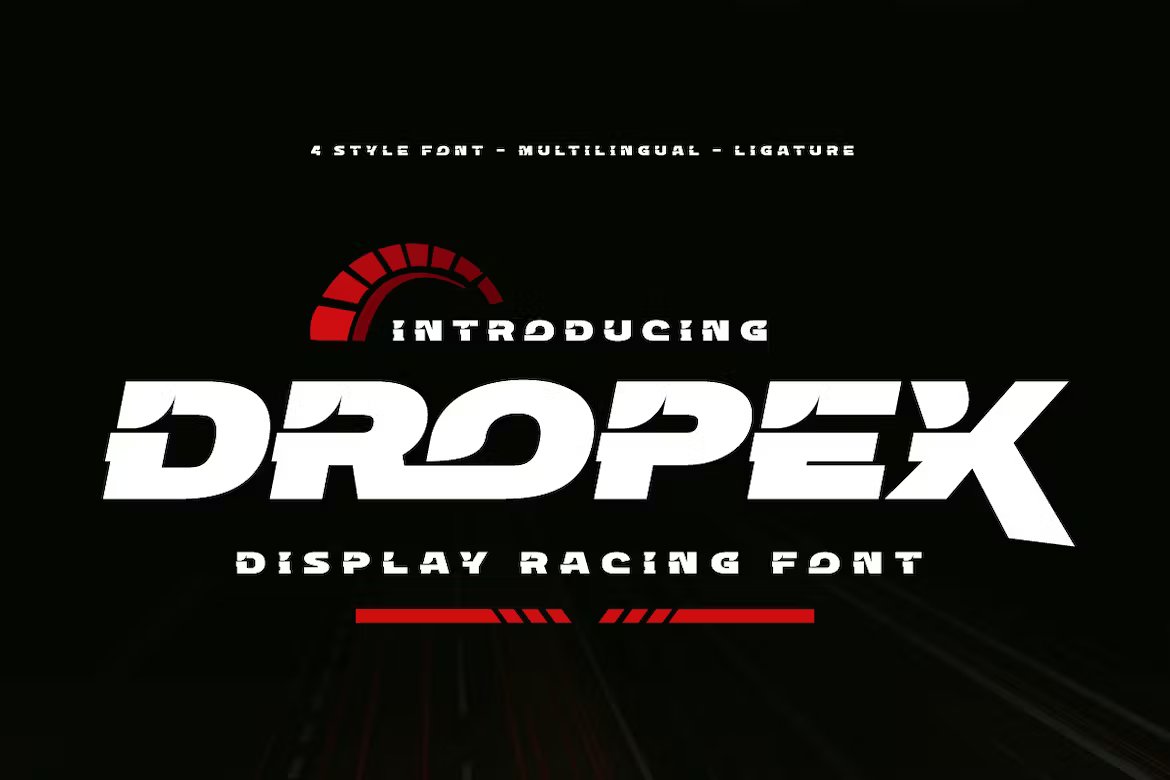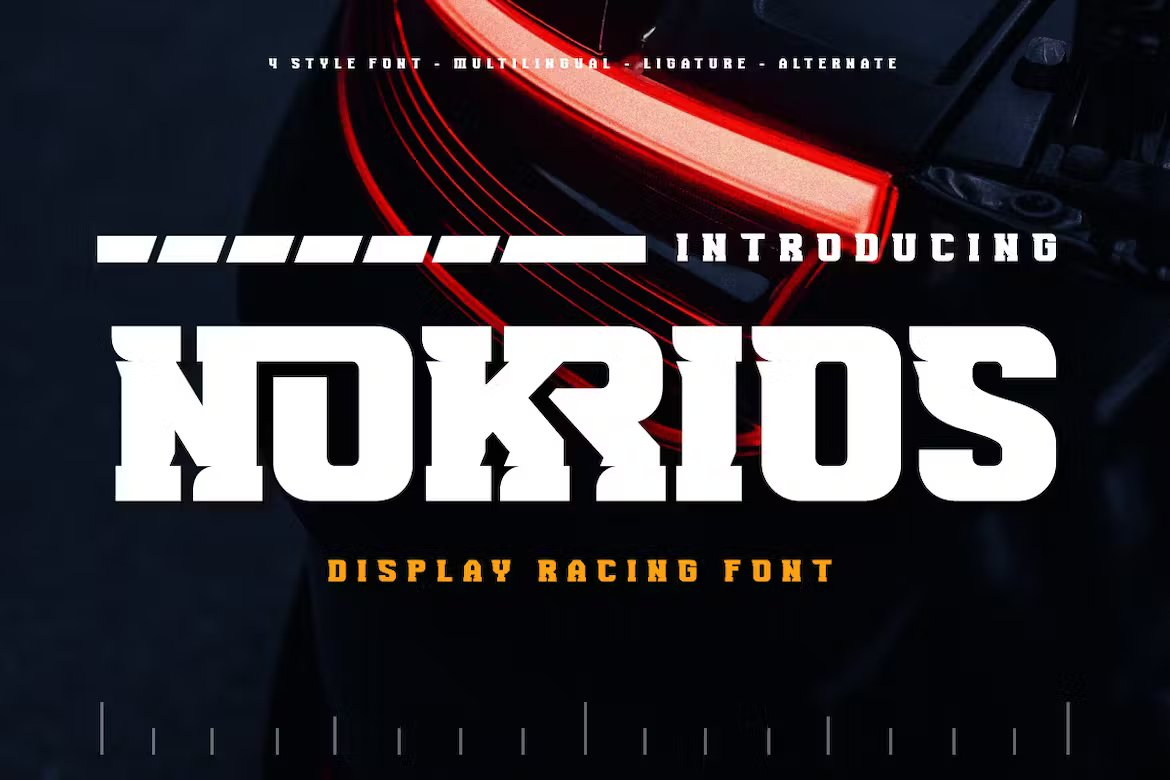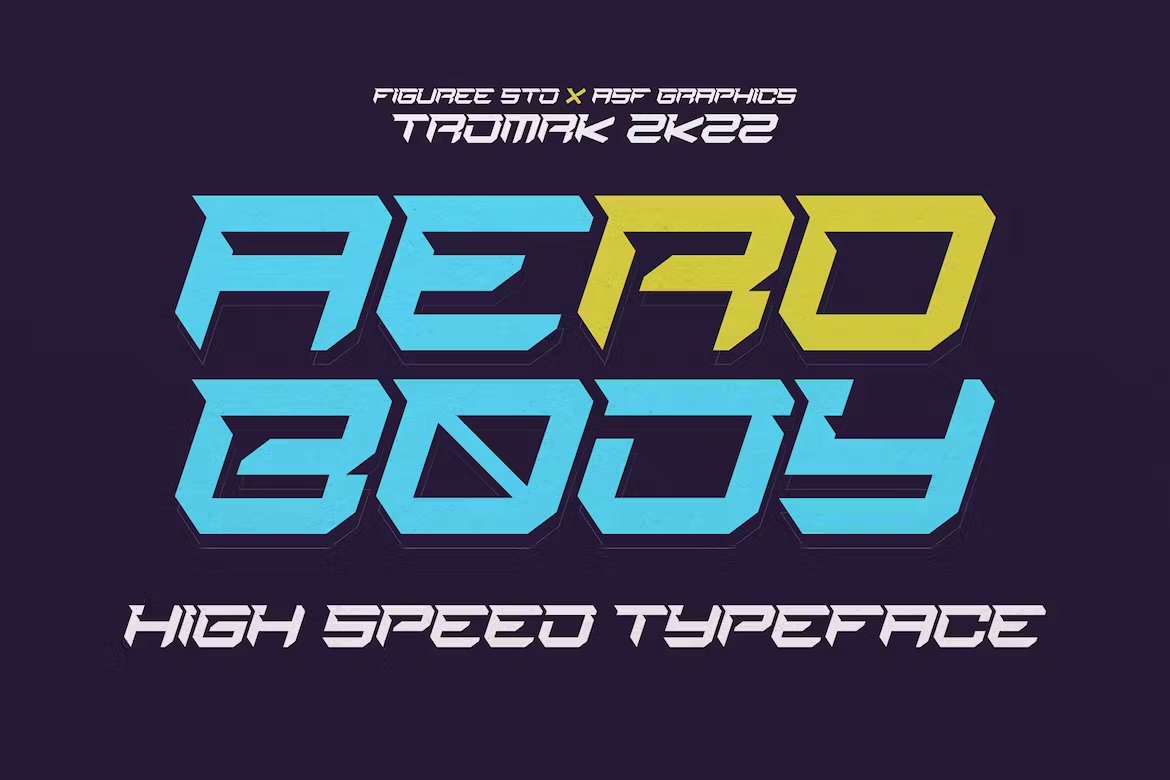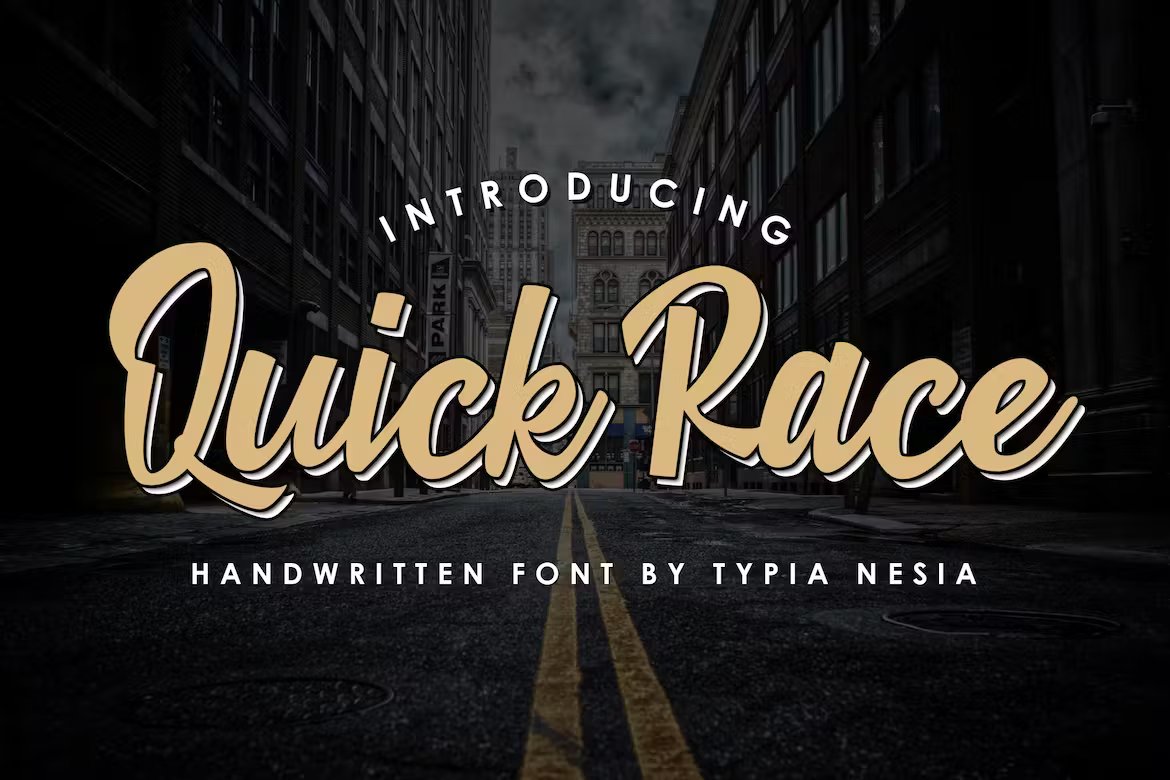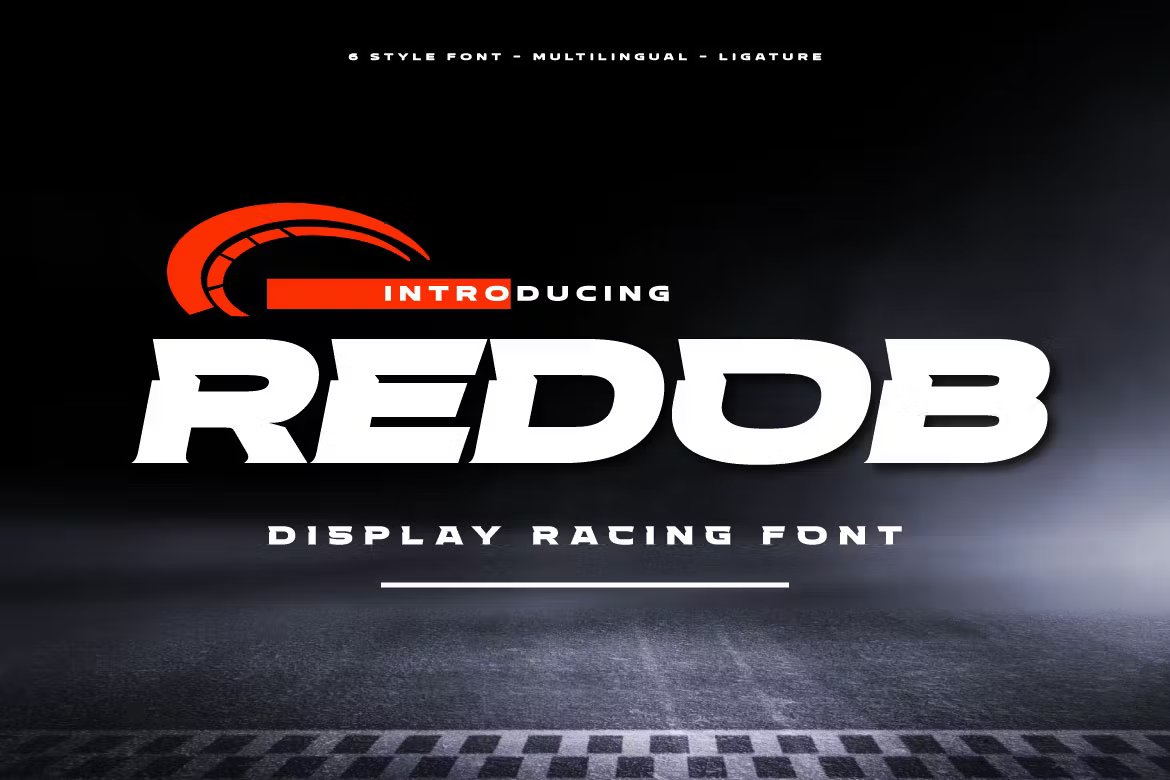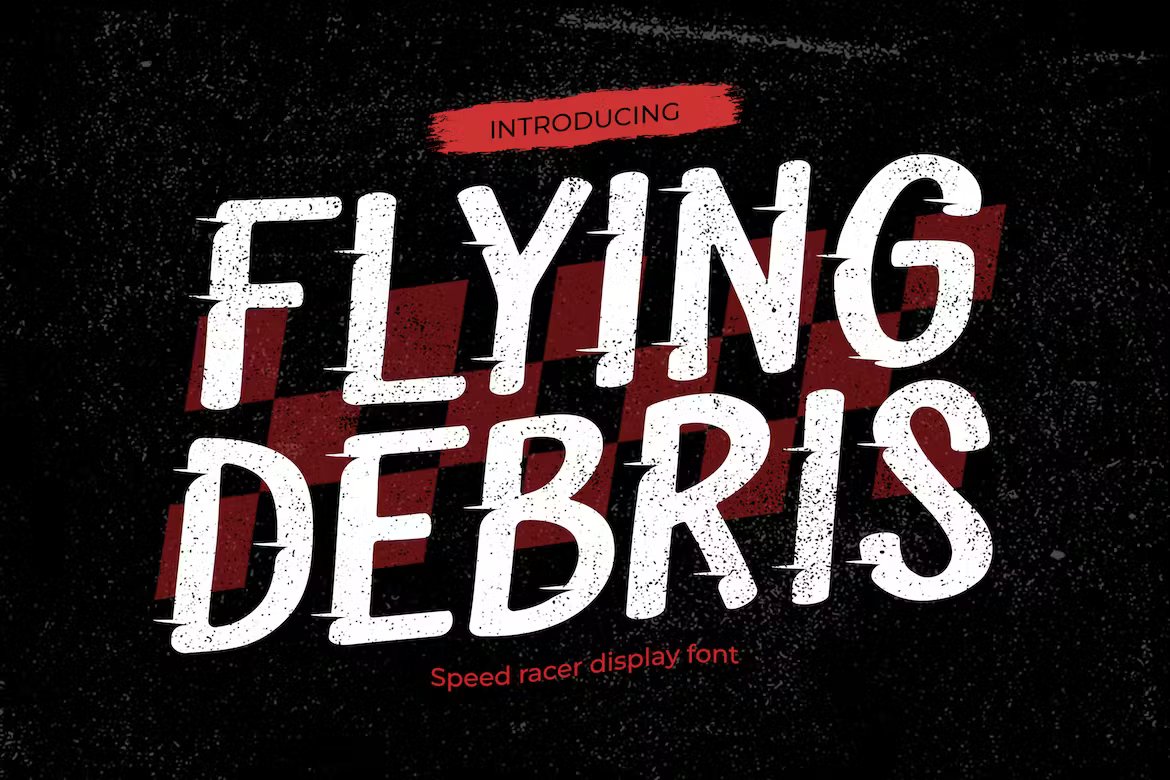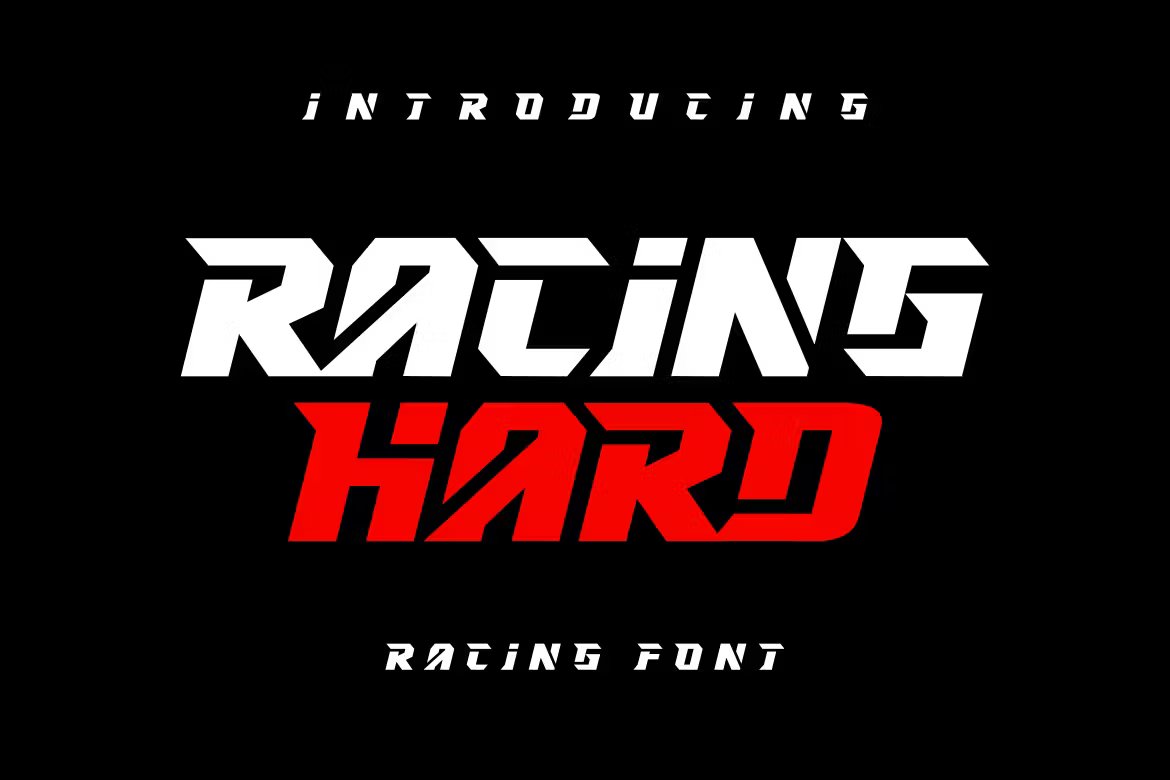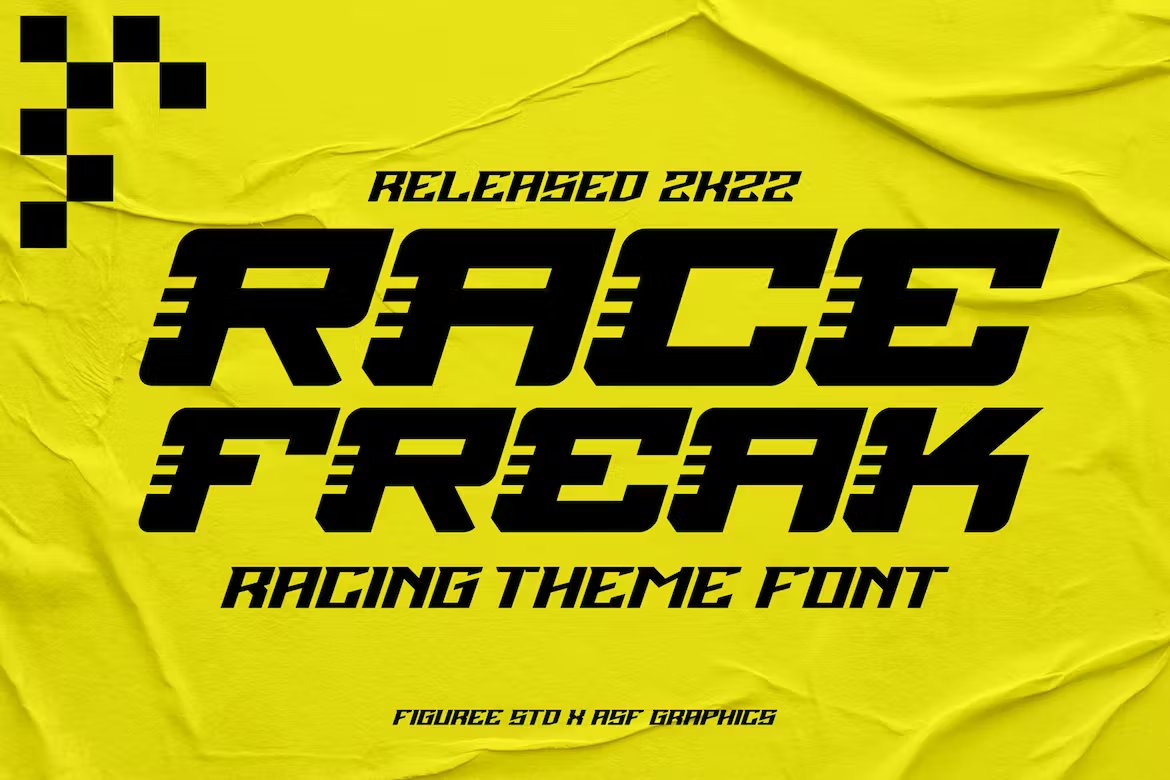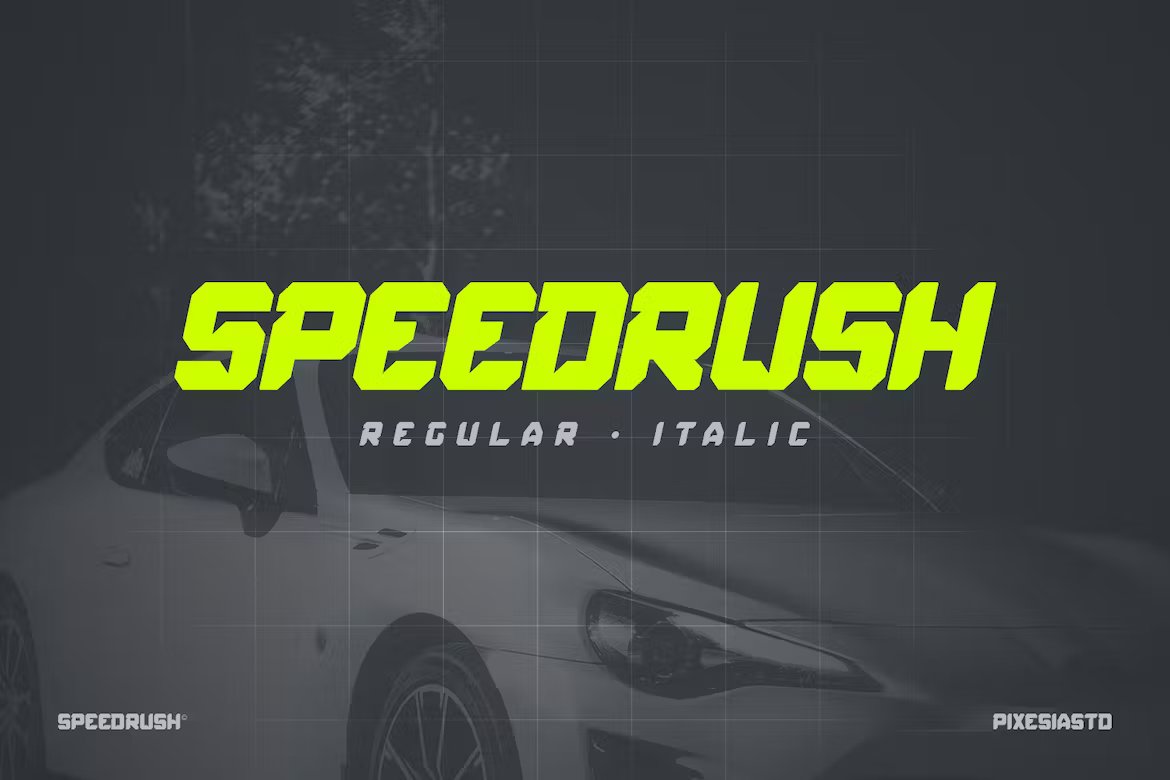
25 Best Car Racing Fonts for Bold and Speedy Designs
Car racing design shows speed, power, and excitement. Every part of the design needs to feel fast and strong. The font you choose plays a big role in creating that feeling.
A bold racing font sets the mood right away. It helps your logo, decal, video thumbnail, or event poster grab attention. When people see it, they instantly know it’s about racing, motion, and energy.
This list gives you some of the best fonts for racing themes. Some look sharp and modern, while others bring a retro, trackside vibe. Each one brings a sense of movement, even when the design is standing still.
Why Racing Fonts Look So Powerful
Racing fonts often use sharp lines, wide spacing, and strong angles. These details help create the feeling of motion and speed. Some fonts even look like tire marks or have a stencil-style build that reminds people of racecars and pit lanes.
The right racing font gives your design a sense of strength and direction. Whether you’re promoting a car show, making a game title, or customizing a vehicle wrap, the font helps bring energy to the visual.
Top Racing Font to Kick Things Off
DROPEX – Sport Racing Font
Dropex Racing Font delivers bold style with strong, unique shapes. It feels masculine, powerful, and stays easy to read in any size. The designer focused on every detail to help your project stand out from the crowd. I’ve used the regular style in both my free and premium products with great results.
NOKRIOS | Speed Racing Font
It takes inspiration from speed and power, and reflects that energy in every letter. We built it to make bold statements, whether you’re using it for big titles or smaller supporting text.
This heavy-duty font gives you two main styles and two italic options, so you can mix and match based on your layout. It works well when you need to add impact without losing clarity, even at smaller sizes.
Rock Road – Racing Font
Rock Road would be perfect for Logo, title, logotype, cover, headline, comic, cover books, cards, posters, or anything that requires a horror or scarylook!
Aerobody – Highspeed Racing Font
Aerobody is Powerful Racing Theme Font. The font is ready to be used for your racing sports or automotive-related projects. Built to be perfect for headlines, logos, branding, posters, packaging, advertising, and much more.
Quick Race
Suitable for any design needs : logo, branding, modern advertising design, logos, poster quote, book / cover Title, editorial design, card, custom mug, pillow, t-shirts, and any hand-lettered needs.
REDOB – Sport Racing Font
The Redob Racing Font is a strong-looking font that gives your project a bold and sporty personality. This font was designed with attention to detail to make your design project stand out from the rest. A bold, masculine font that’s perfect for creating that “in your project” look. Comes in 6 different styles: Regular, Round & Italic, each with a slightly different feel.
Flying Debris – Retro Racing Font
Flying Debris is the font that ignites the retro racing spirit, capturing the essence of speed and style in vintage glory. Ideal for racing posters, automotive branding, logos, merchandise, and retro marketing tools, Flying Debris brings an energetic and dynamic vibe to your projects. Feel the adrenaline rush as the bold letterforms evoke the excitement of the race track.
RACING HARD
FASTLYNK – Race Theme Display Font
FASTLYNK has is perfect for the purposes of designing templates, brochures, videos, advertising branding, logos and more. That is Sport Display with strong and Sport nuances.This font is great for your next creative project such as logos, printed quotes, invitations, cards, product packaging, headers, Logotype, Letterhead, Poster, Label, and etc.Crafted manually with love and passion. This handmade font will make your design has a beautiful natural touch for each details. It is perfect for any design project as Invitation, book cover, craft or any design purposes.
Race Freak – Racing Theme Font
Race Freak is Powerful Racing Theme Font. The font is ready to be used for your racing sports or automotive-related projects. Built to be perfect for headlines, logos, branding, posters, packaging, advertising, and much more.
Speed Rush – Race Display Font
Speed Rush is an assertive and modern display font that oozes strength and toughness. It suits perfectly any racing theme or online game. Have fun with this beautiful font and explore its endless variations.
Brake Disc – Energetic Racing Font
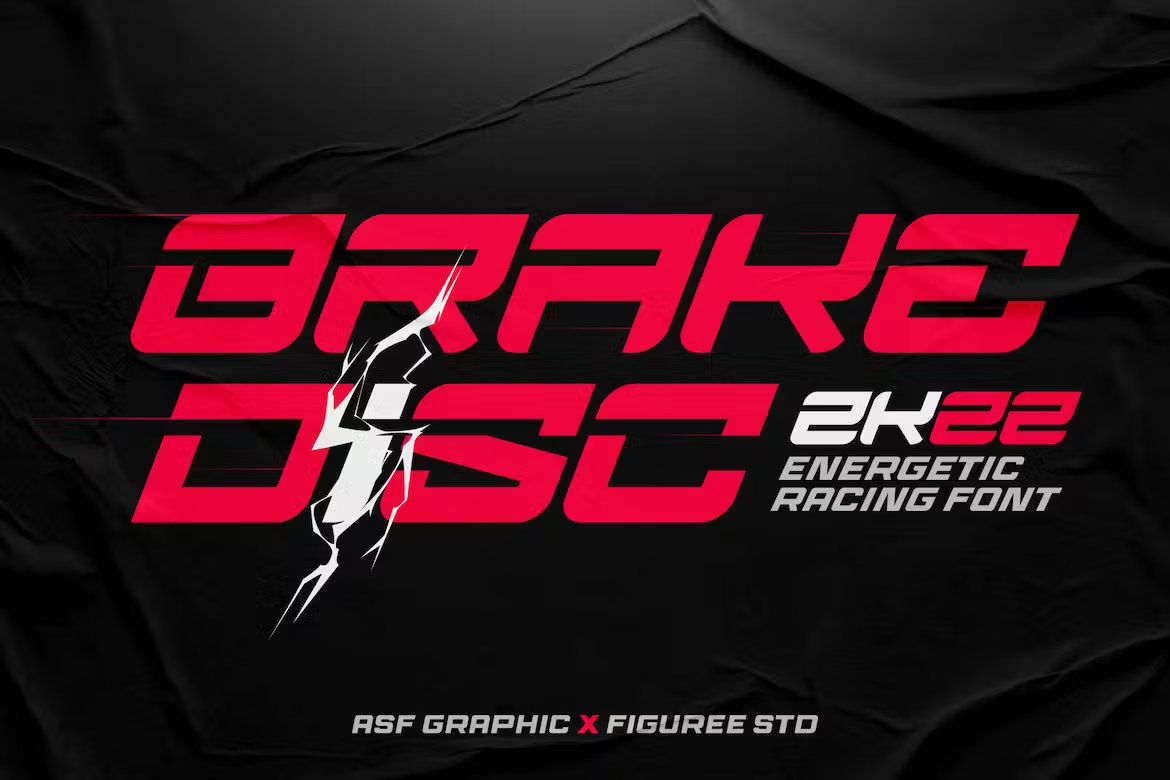
Brake Disc is an Energetic Racing Font. The font is ready to be used for your racing sports or automotive-related projects. Built to be perfect for headlines, logos, branding, posters, packaging, advertising, and much more.
Free Raceline Display Font
Raceline font is ideal for sports headline of speed car race, branding projects, advertisements, product packaging, product designs, label, photography, watermark, invitation, stationery, logo and monogram of automotive game or other modern dynamic text.